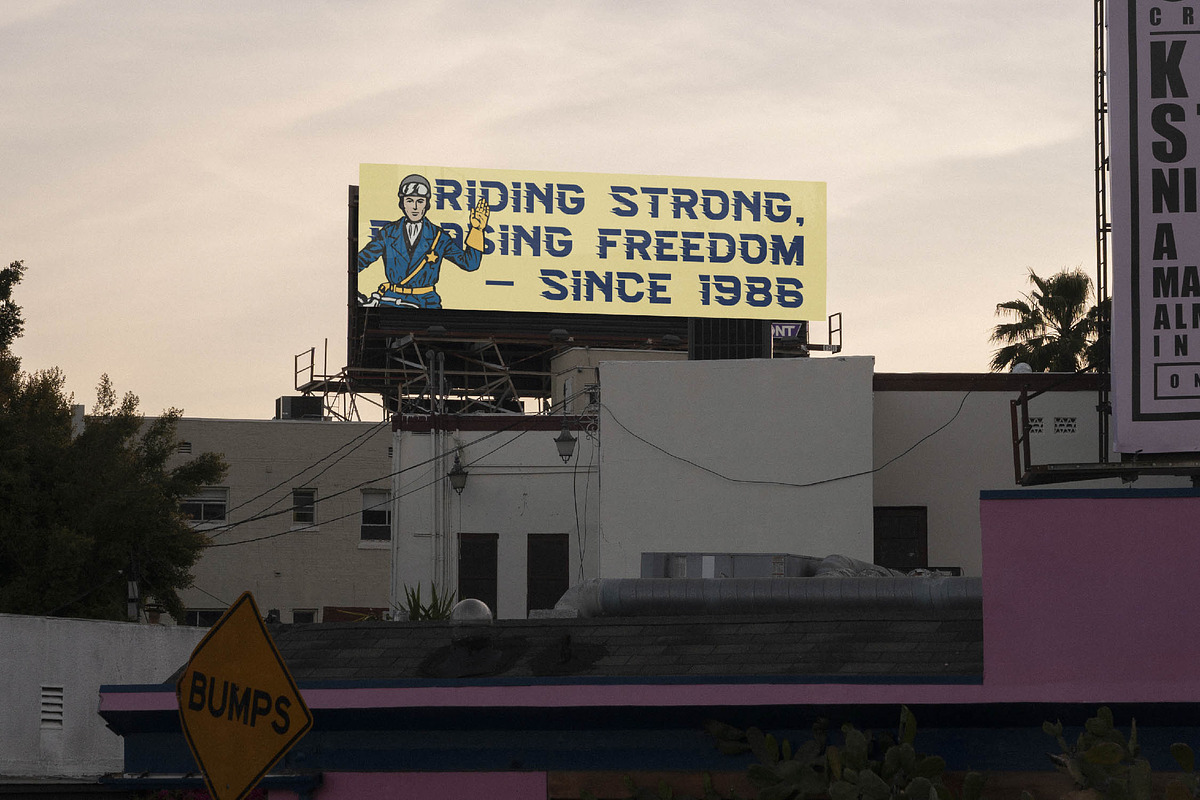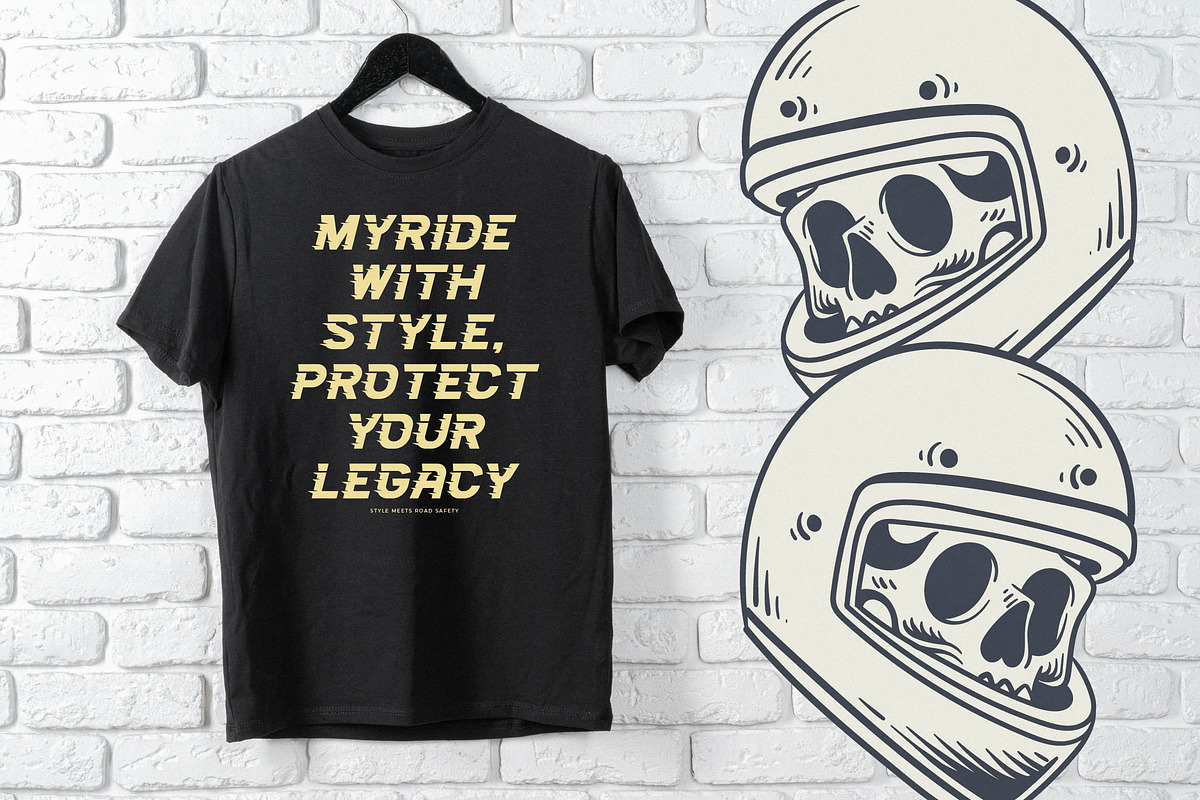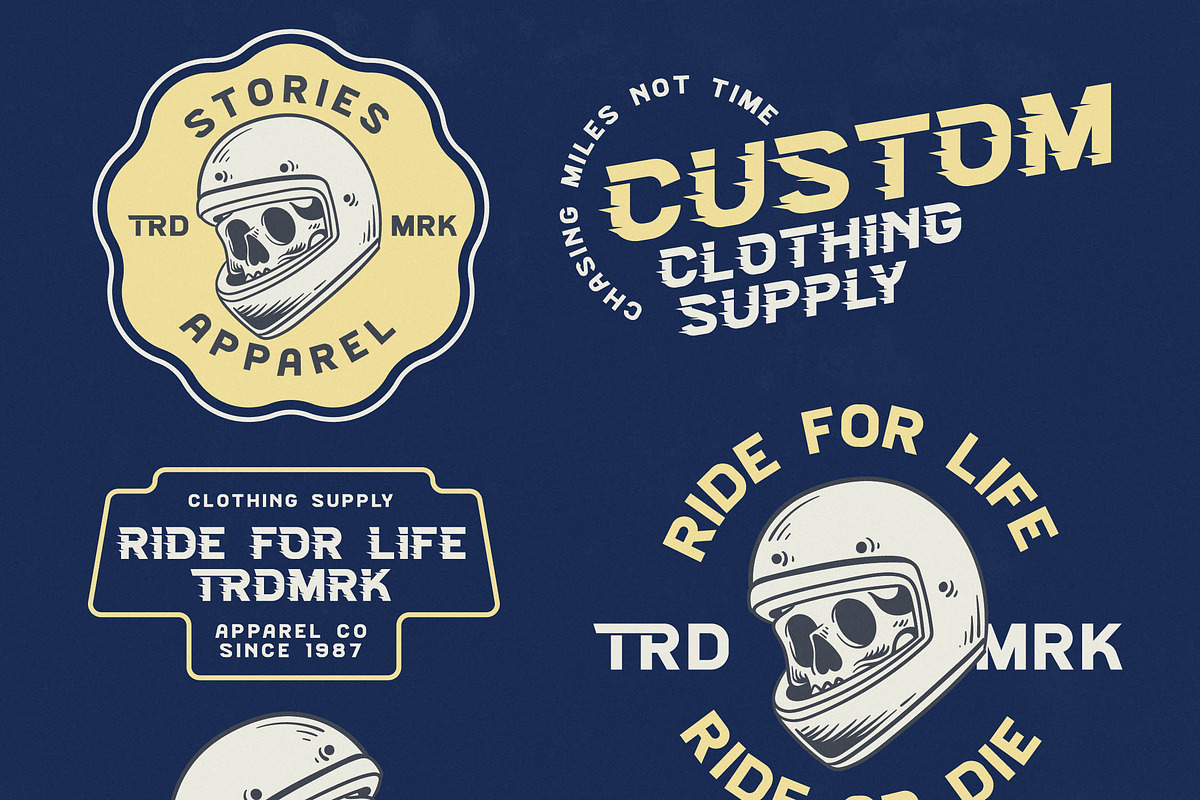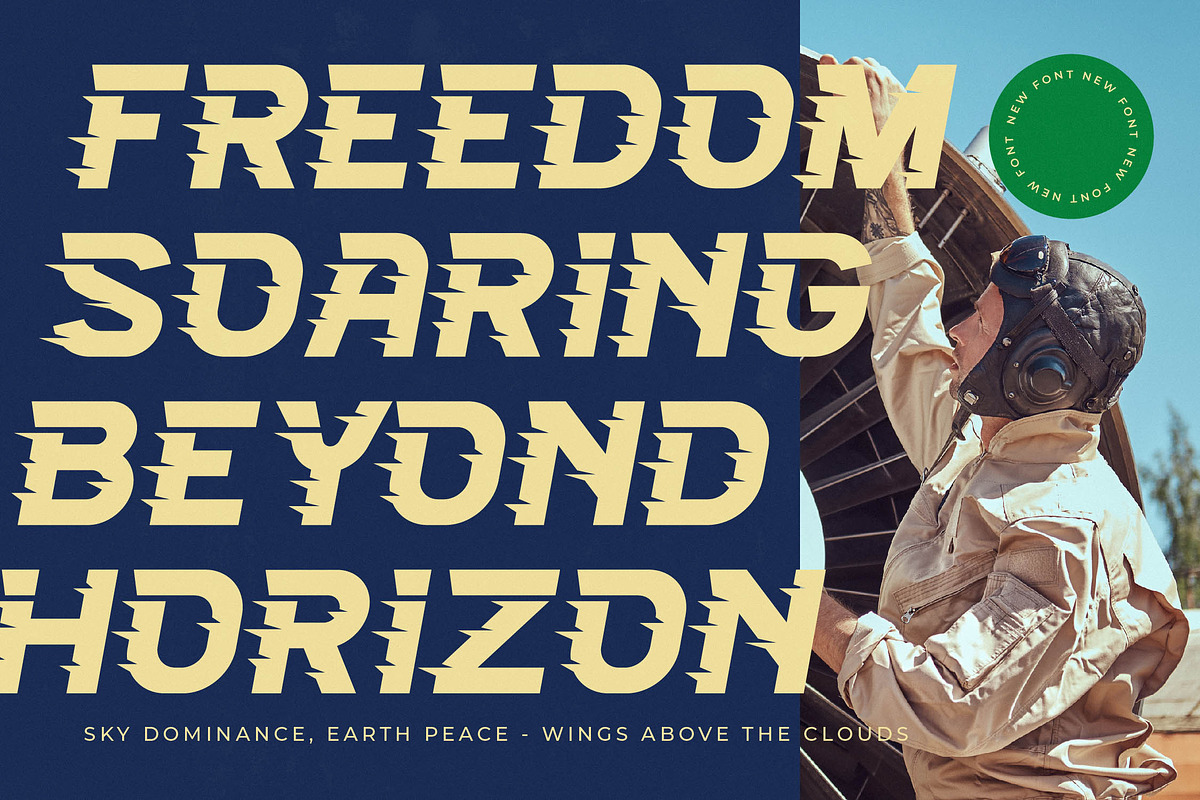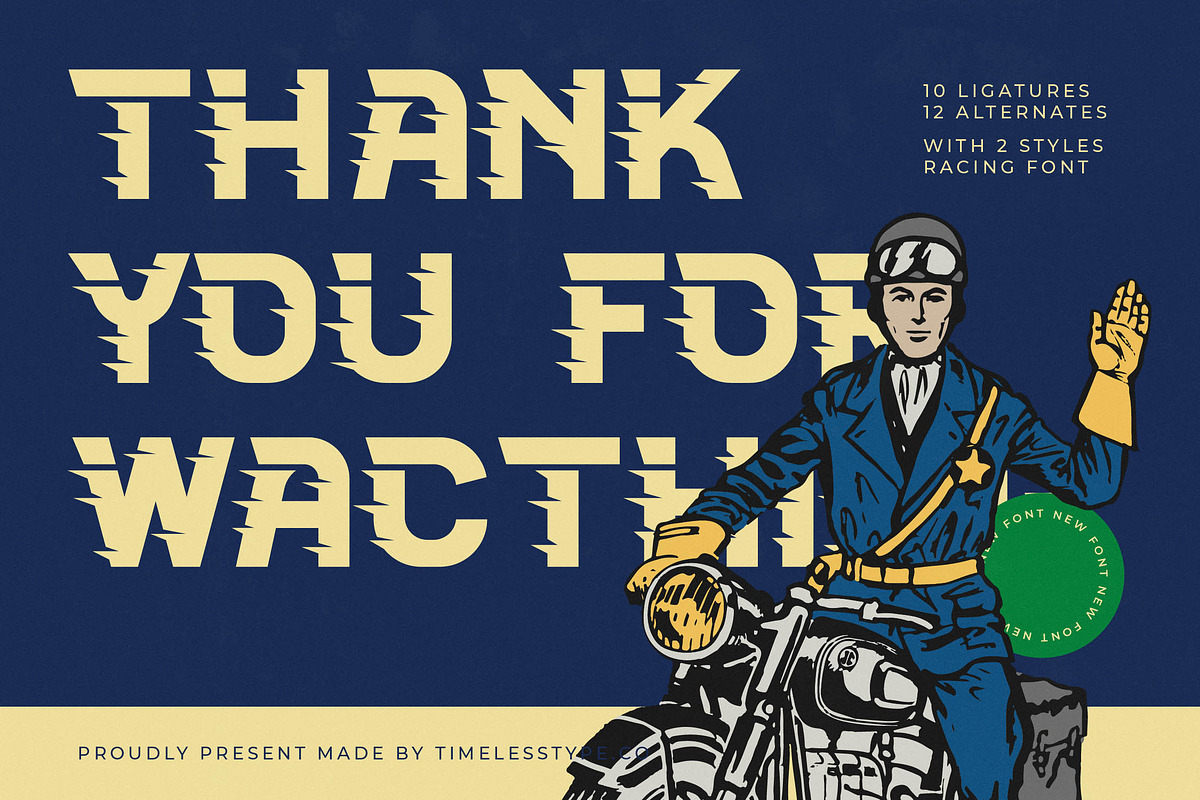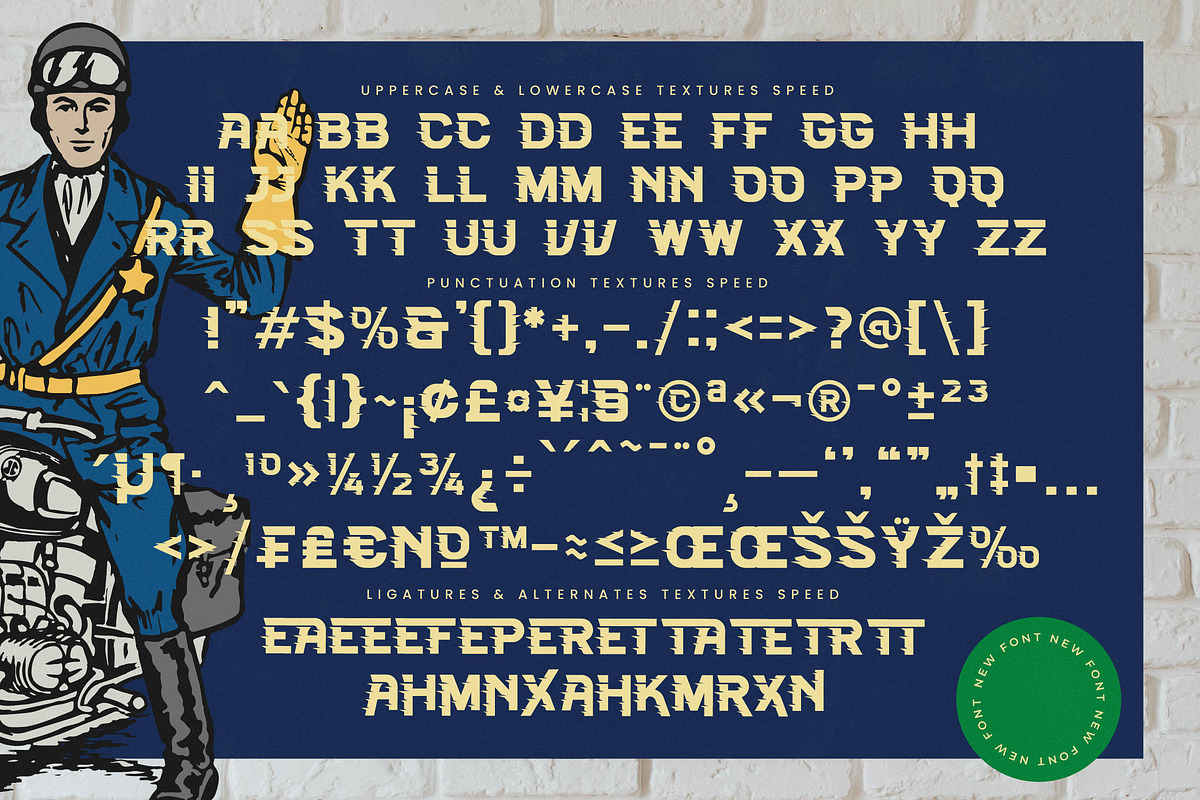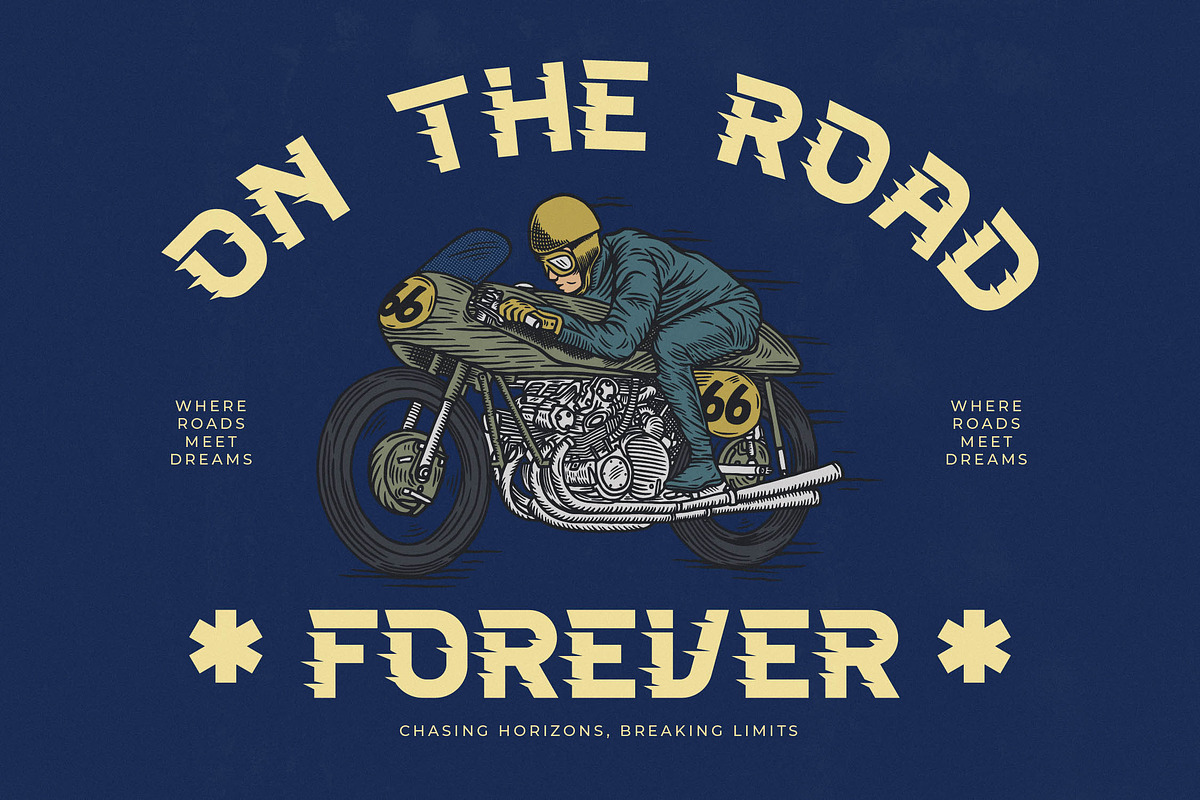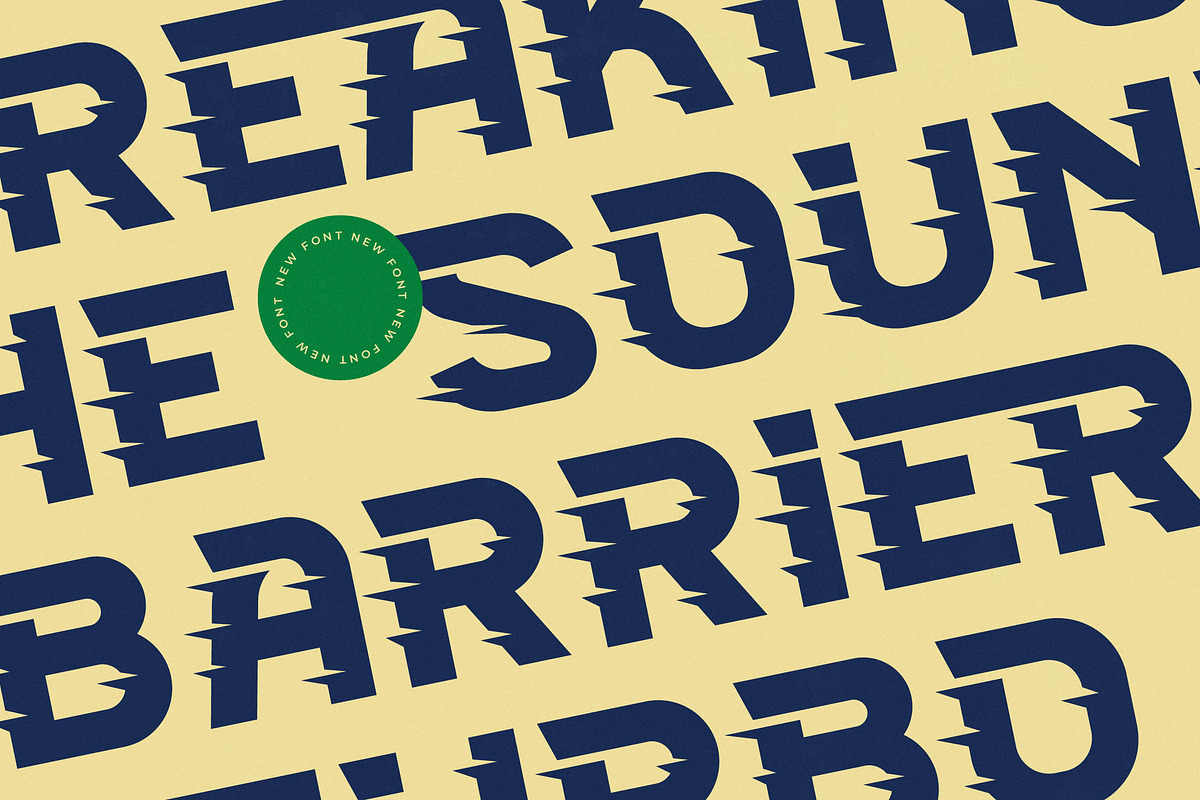
Grand Engine Racing Display Font
Feel the adrenaline rush with Grand Engine, a high-octane display font designed to push your creative boundaries. It is the perfect choice for projects that demand speed, power, and an unmistakable vintage racing aesthetic.
Drawing inspiration from the golden era of motorcycle racing and classic automotive typography, this typeface captures the essence of a roaring engine on the open road. The horizontal speed lines and blocky construction evoke the spirit of mid-century industrial design and heritage speedways.
This modern sans display brings a sense of luxury typography to the world of motorsports while maintaining a rugged, branding impact. Its unique speed texture makes it a standout editorial font, offering a visual velocity that ordinary typefaces simply cannot match.
Embracing the current modern display trend, Grand Engine aligns perfectly with the rise of character-driven typography in the outdoor and lifestyle sectors. It meets the demand for editorial display fonts that bridge the gap between retro nostalgia and contemporary graphic design.
Engineered for versatility, this font excels in logo design, branding, and high-energy editorial layouts. It is an ideal fit for automotive packaging, sports event promotion, and even bold fashion streetwear labels looking for a vintage edge.
The package includes a comprehensive set of ligatures and alternates to provide endless customization for your headlines. With full support for multilingual layouts and international characters, it ensures your message reaches a global audience across its distinct styles.
- Ligature 10 Alternate 12